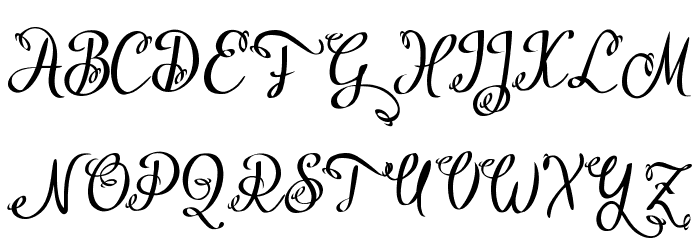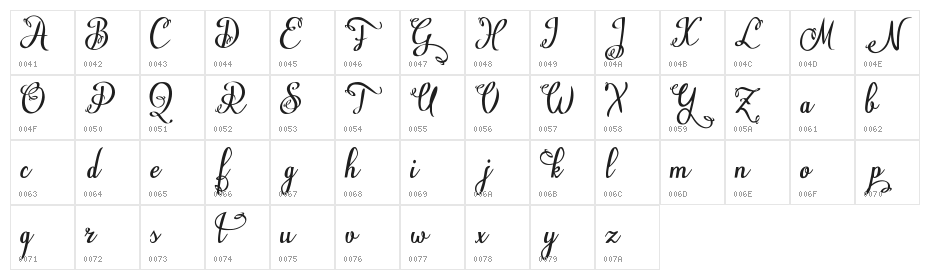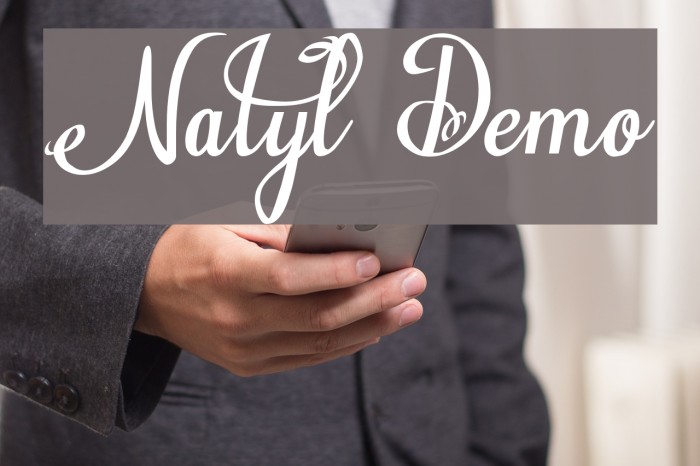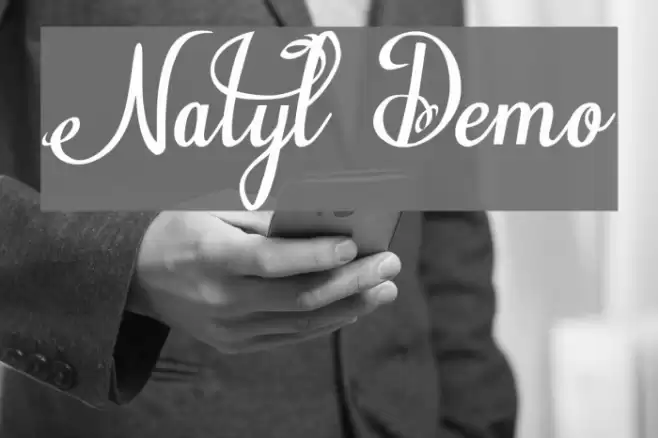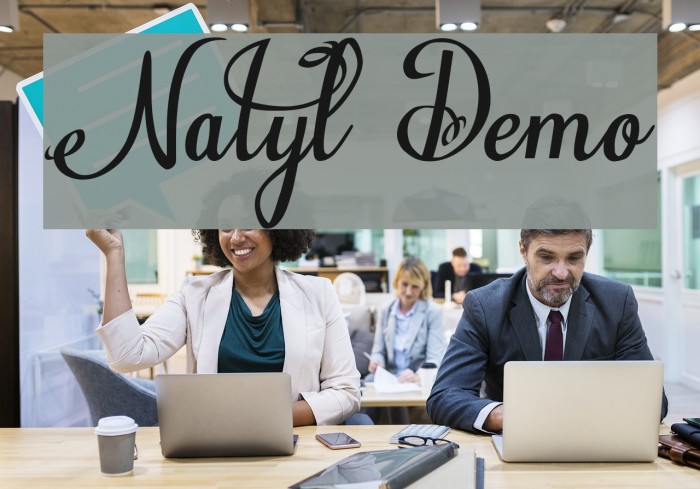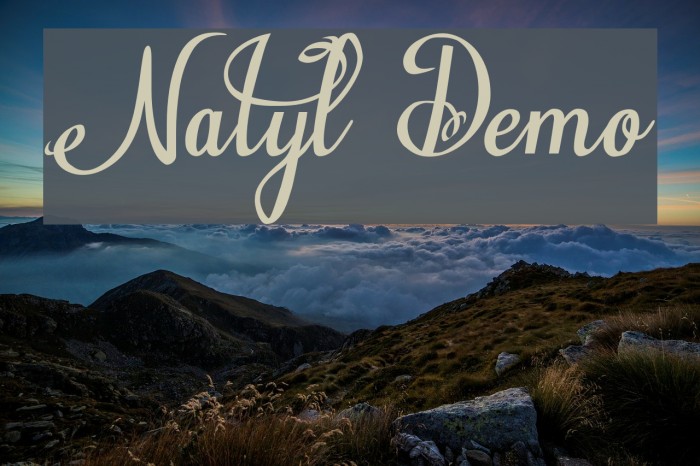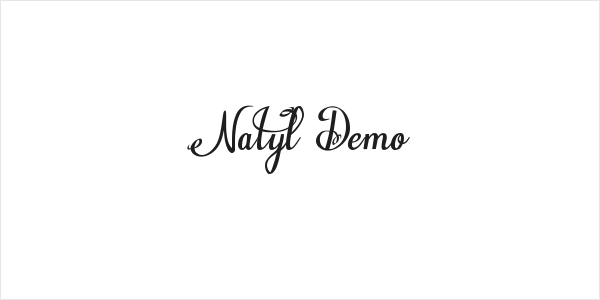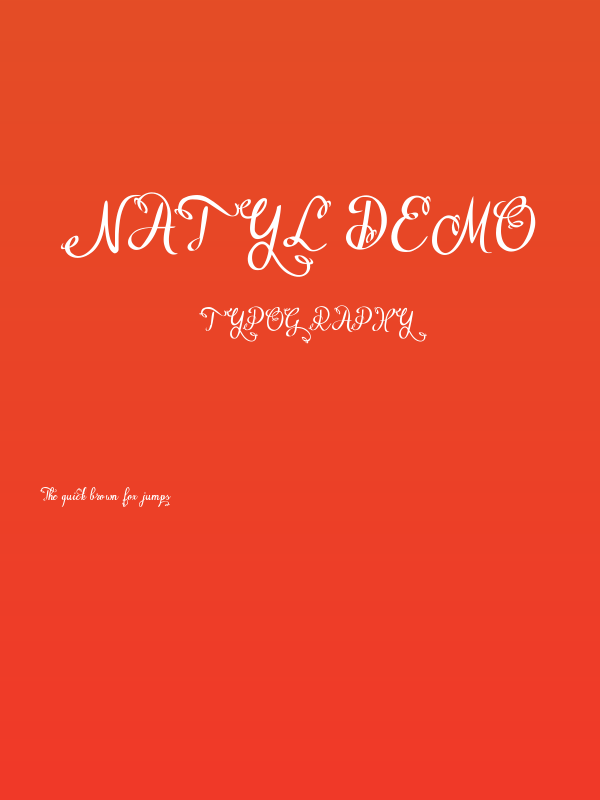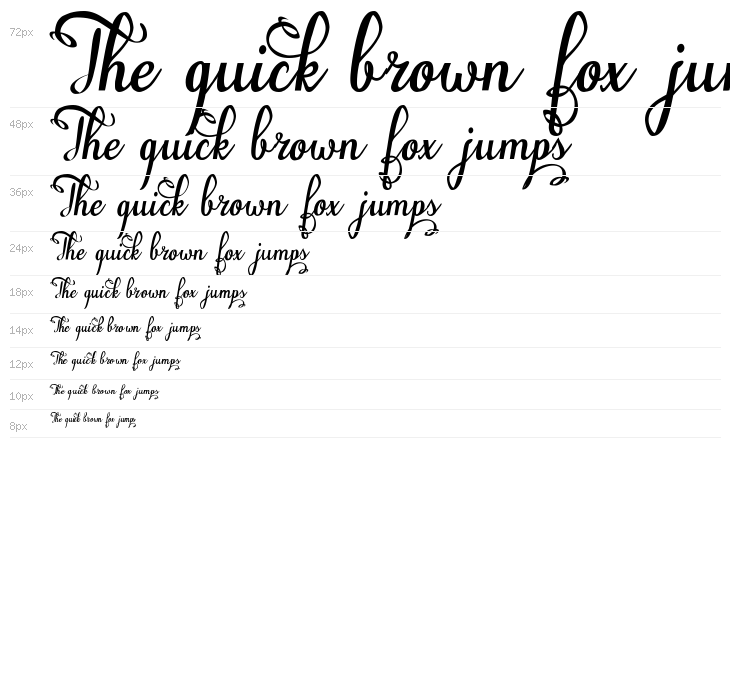
Natyl Demo Font
Natyl Demo Description
This font features an elegant and decorative script style, characterized by its flowing, cursive letters with intricate swashes and flourishes. The uppercase letters are particularly ornate, with loops and embellishments that give a sense of sophistication and artistry. The lowercase letters maintain a consistent flow, with some characters extending below the baseline, adding to the font's graceful appearance. The overall design is both stylish and legible, making it suitable for creative and formal applications. The numbers and special characters are designed to match the elaborate style of the alphabet, ensuring a cohesive look across all text elements.
| Proposed Projects | Ideal for wedding invitations, luxury branding, greeting cards, and artistic posters. |